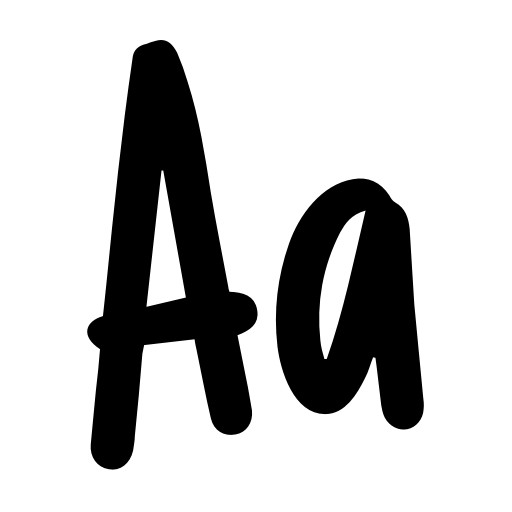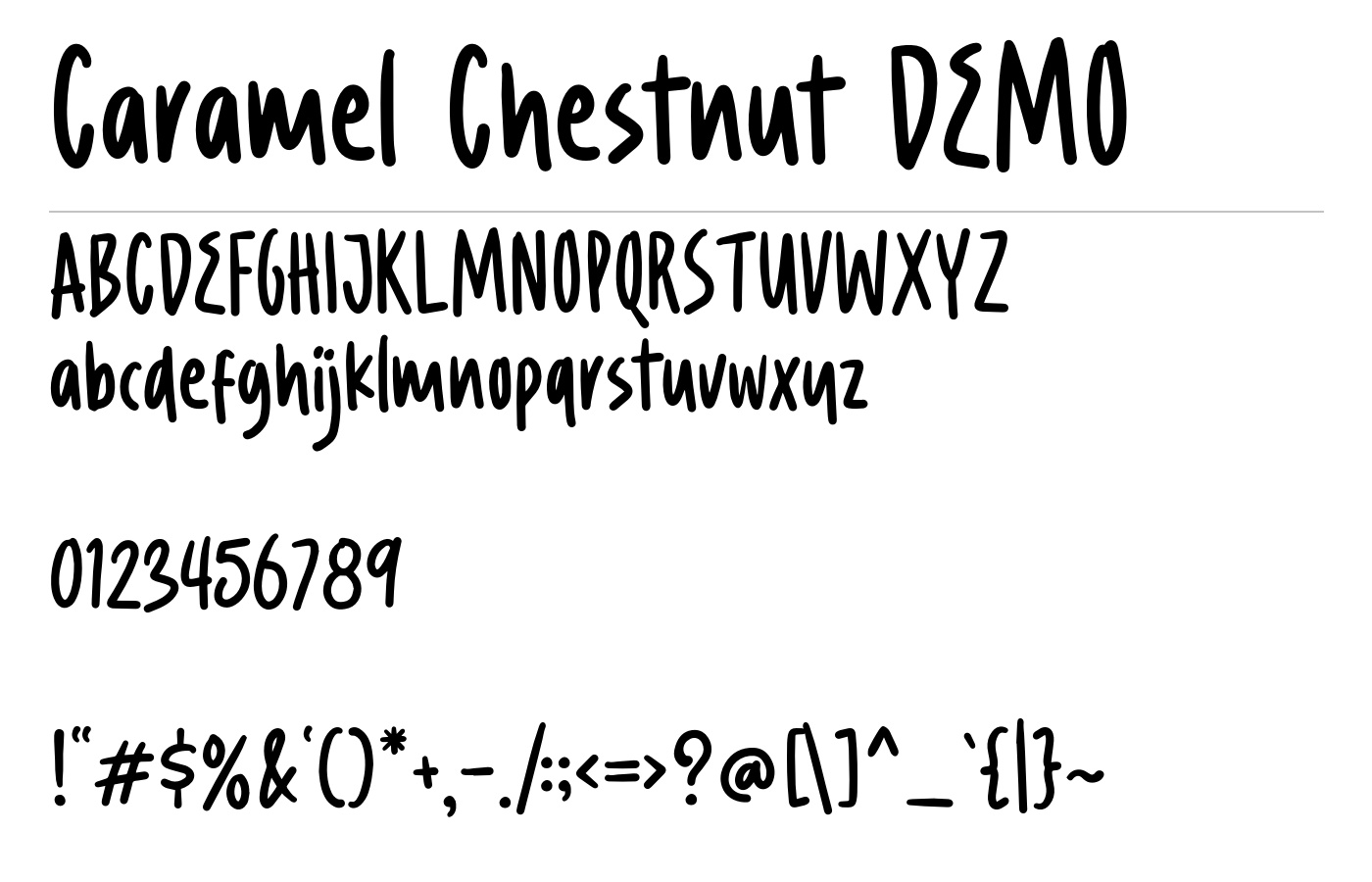
Caramel Chestnut DEMO is a playful and casual handwritten sans serif font with a friendly, approachable vibe. Its tall, slightly irregular letterforms and moderate stroke contrast give it an informal, human touch, making it ideal for creative projects, children’s materials, and branding that seeks warmth and personality. This font works best in headlines and logos where a relaxed, inviting style is desired.